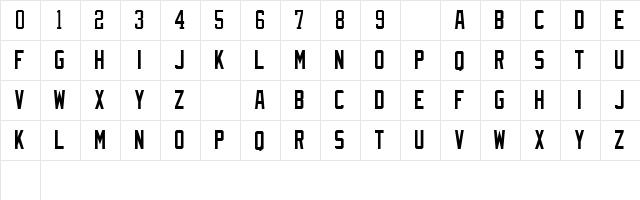
NBA Bucks Regular Font Preview
NBA Bucks Regular
Design Context for NBA Bucks Typeface
NBA Bucks is a composed and adaptable typeface that performs quietly and consistently across a wide range of design contexts.
Pro Tip: Pair NBA Bucks with a font of contrasting weight or personality to build a more expressive typographic hierarchy.